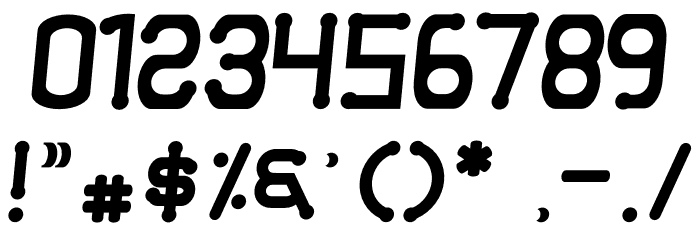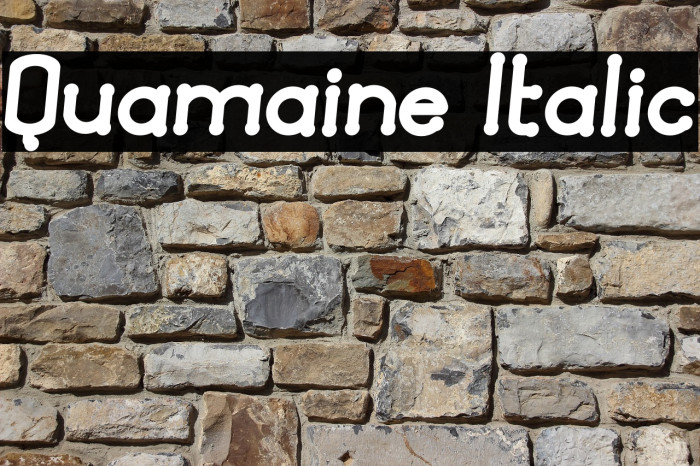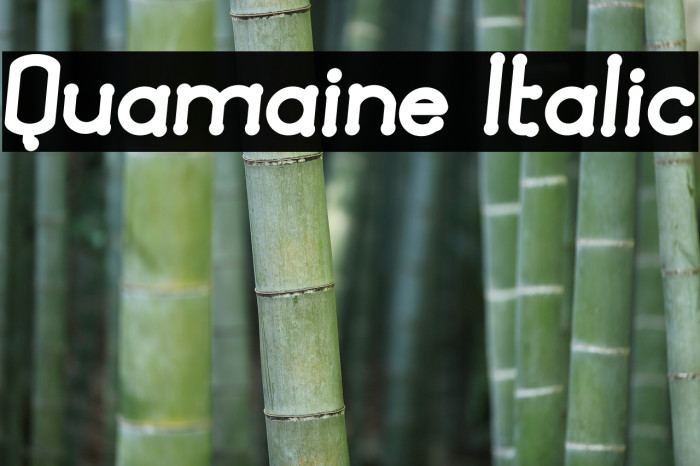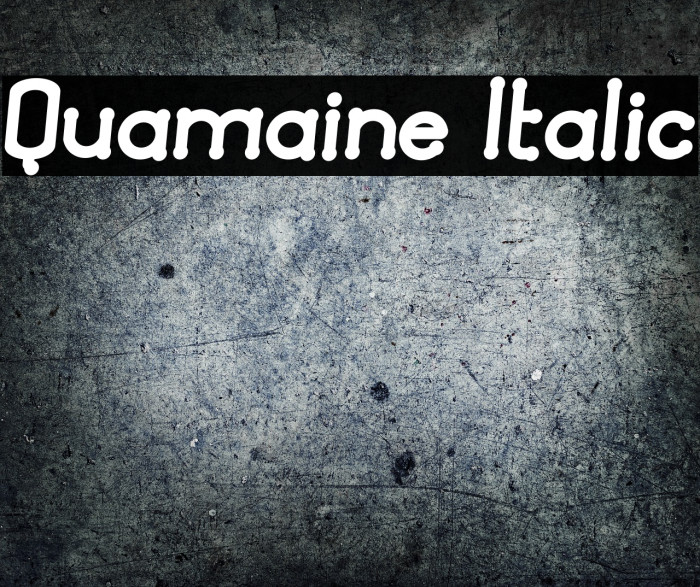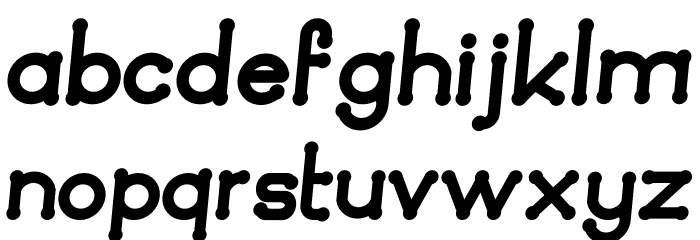
Quamaine Italic Font
This font features a playful and rounded style with a slight slant, giving it an italic appearance. The characters are bold and have a consistent stroke width, contributing to a uniform look. The rounded edges and smooth curves provide a friendly and approachable feel. The uppercase and lowercase letters maintain a cohesive design, with the lowercase letters slightly smaller in height. The numbers are clear and easy to read, matching the style of the alphabet. Special characters are included, maintaining the same rounded and bold characteristics. This font is versatile, suitable for both digital and print media.
A playful, rounded italic font with bold and consistent strokes.
• Proposed Projects: Ideal for children's books, playful branding, casual invitations, and digital content.
• Category: Decorative/Display
• Bold: Yes
• Italic: Yes
• Weight: Bold
• Width: Normal
• Character Spacing: Normal
• Contrast: Low
• Overall Style: Playful, Modern
• Use Case: Headlines, Logos, Posters